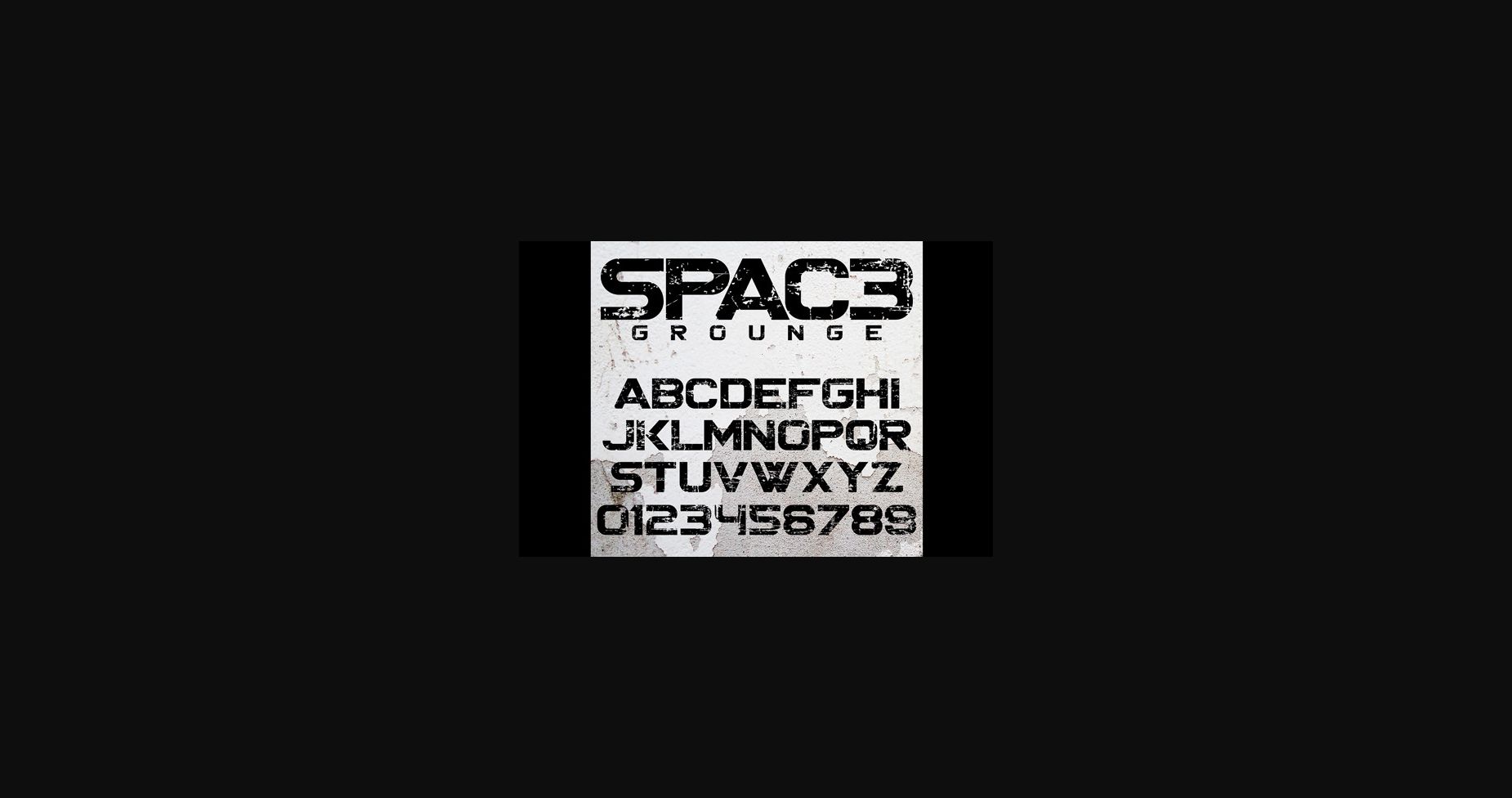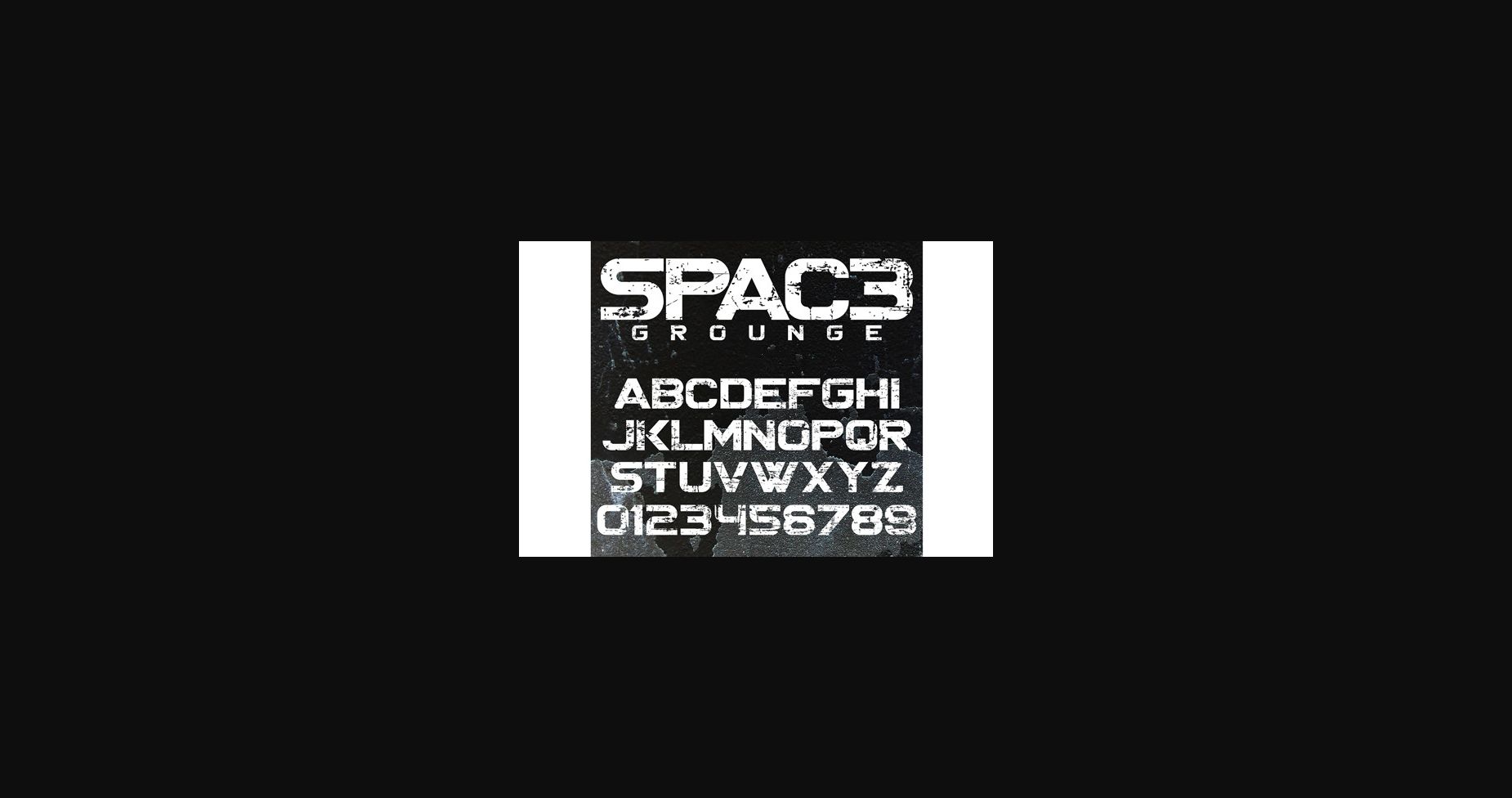
HomeSans Serif FontsSpac3 Grounge Font Sans Serif Fonts Spac3 Grounge Font FacebookXPinterestWhatsApp 1 of 4 ... Spac3 Grounge Font Poster 2... Spac3 Grounge Font Poster 3... Spac3 Grounge Font Poster 4... About Spac3 Grounge Font Spac3 Grounge is a futuristic font with a robotic-inspired theme. This font is a perfect match for video games, DJ services, websites, technology ads, magazines, and book titles. DOWNLOAD NOW People also explored Candy Homes Font Emolka Font Beily Rough and Stamp Font Qardilla Duo Font Rustcyber Font Wolvern Font S6 Sans Font Magic of Christmas Font Billidas Font 266 0 TagsSpac3 Grounge Font Previous articleEsba FontNext articleMonogram Font LEAVE A REPLY Cancel reply Comment: Please enter your comment! Name:* Please enter your name here Email:* You have entered an incorrect email address! Please enter your email address here Website: Save my name, email, and website in this browser for the next time I comment. Personal Use Free Open Store Personal Use Free Read more about this font Blessed Font Personal Use Free Read more about this font Messy Personal Use Free Read more about this font Groomer Personal Use Free Read more about this font BLOG How to Install and Use Fonts on Windows, macOS, and Web Projects How to Install and Use Fonts on Windows, macOS, and Web Projects Fonts are a crucial part of design and branding. Whether you’re designing a... Top 7 Google Fonts Alternatives for Faster and Privacy-Friendly Web Design (2025) 5 Fonts That Will Dominate Design Trends in 2026 To increase your work productivity, choose the most readable fonts.